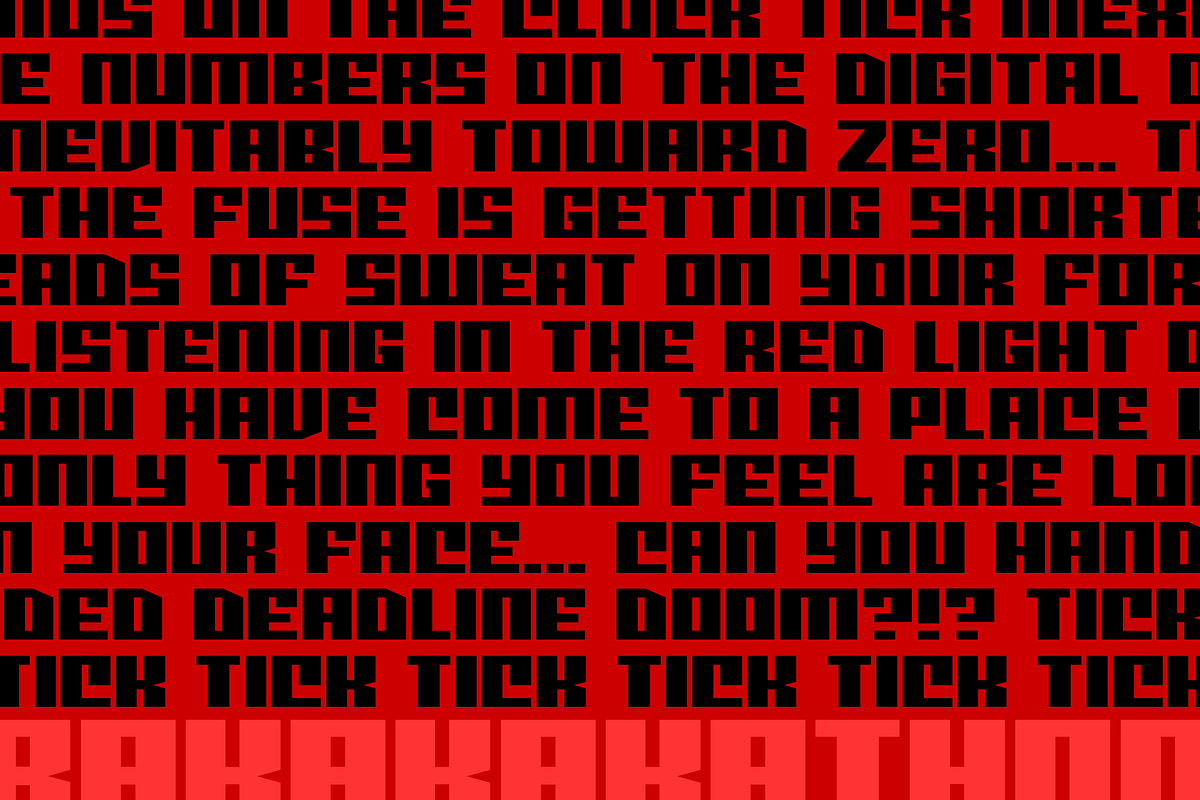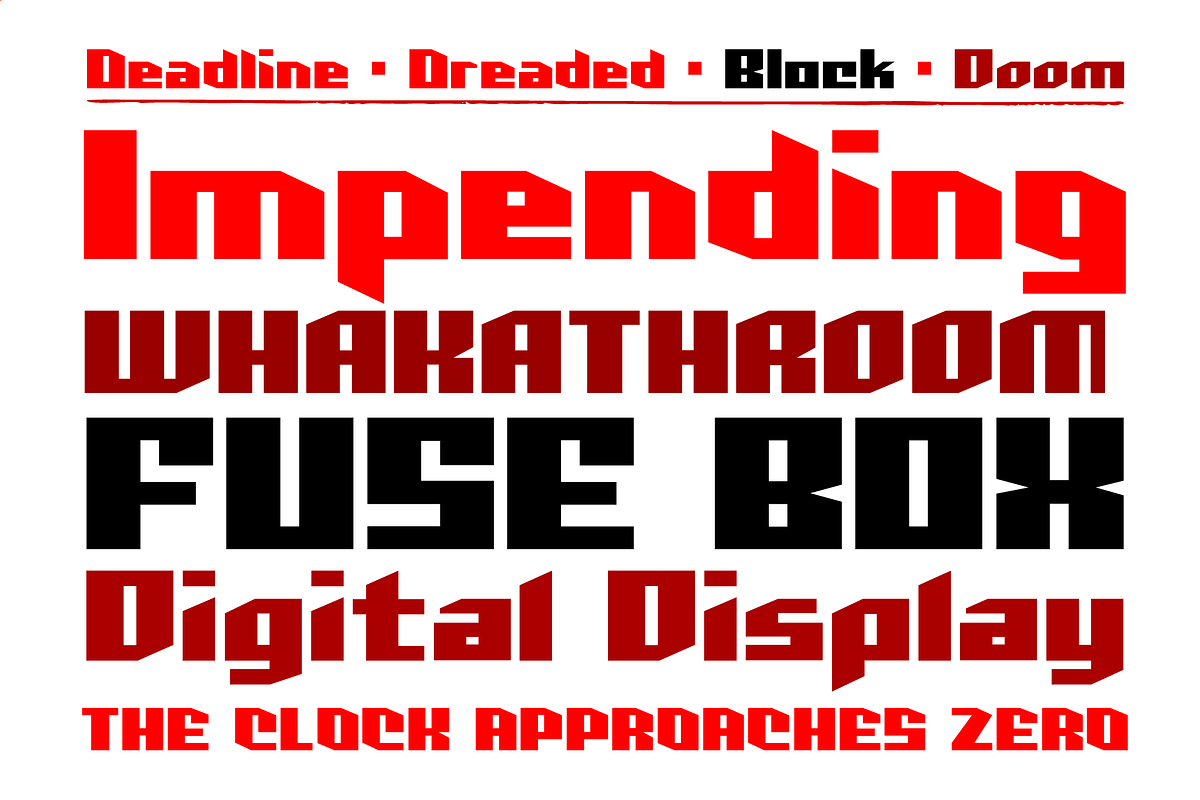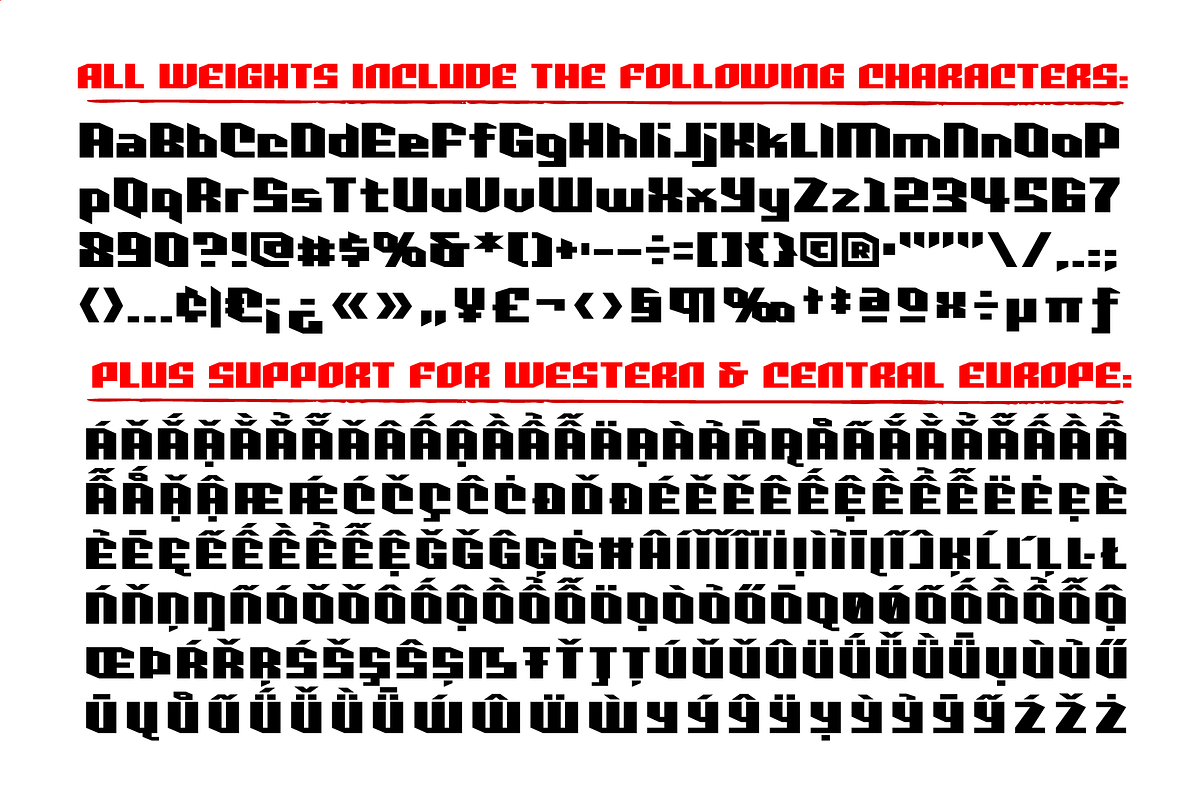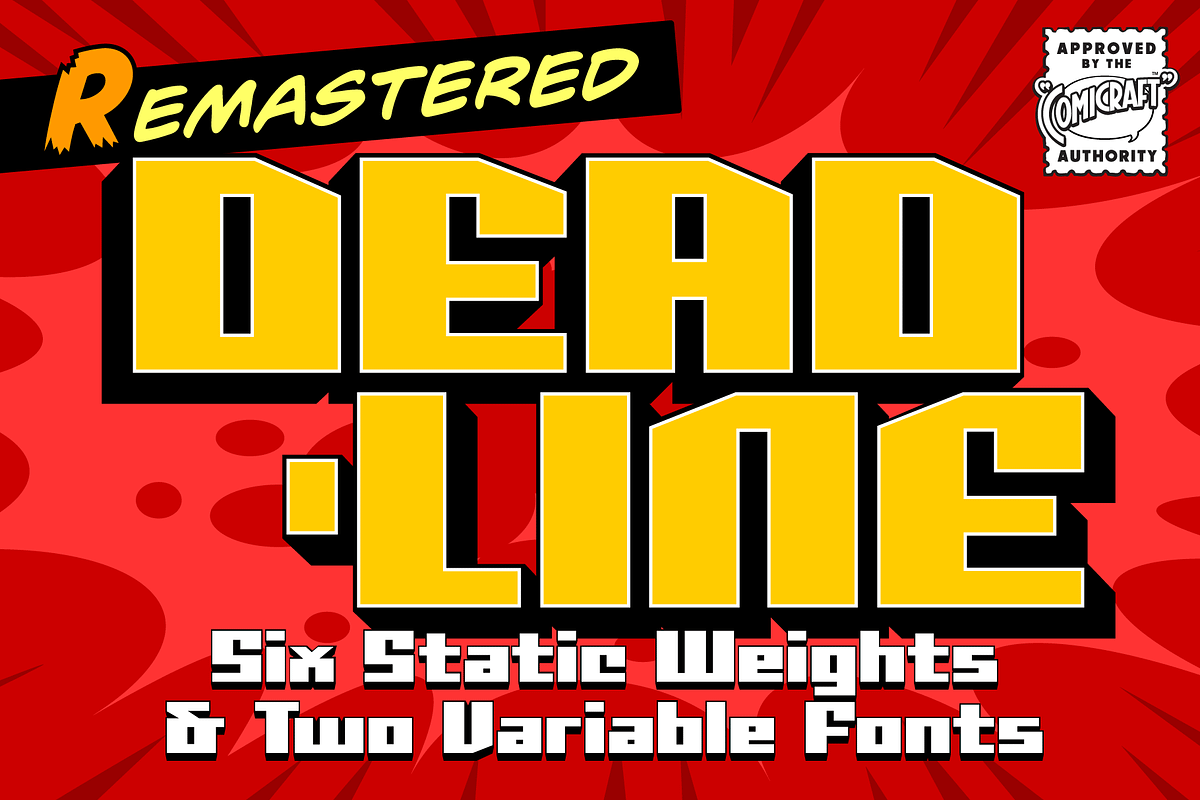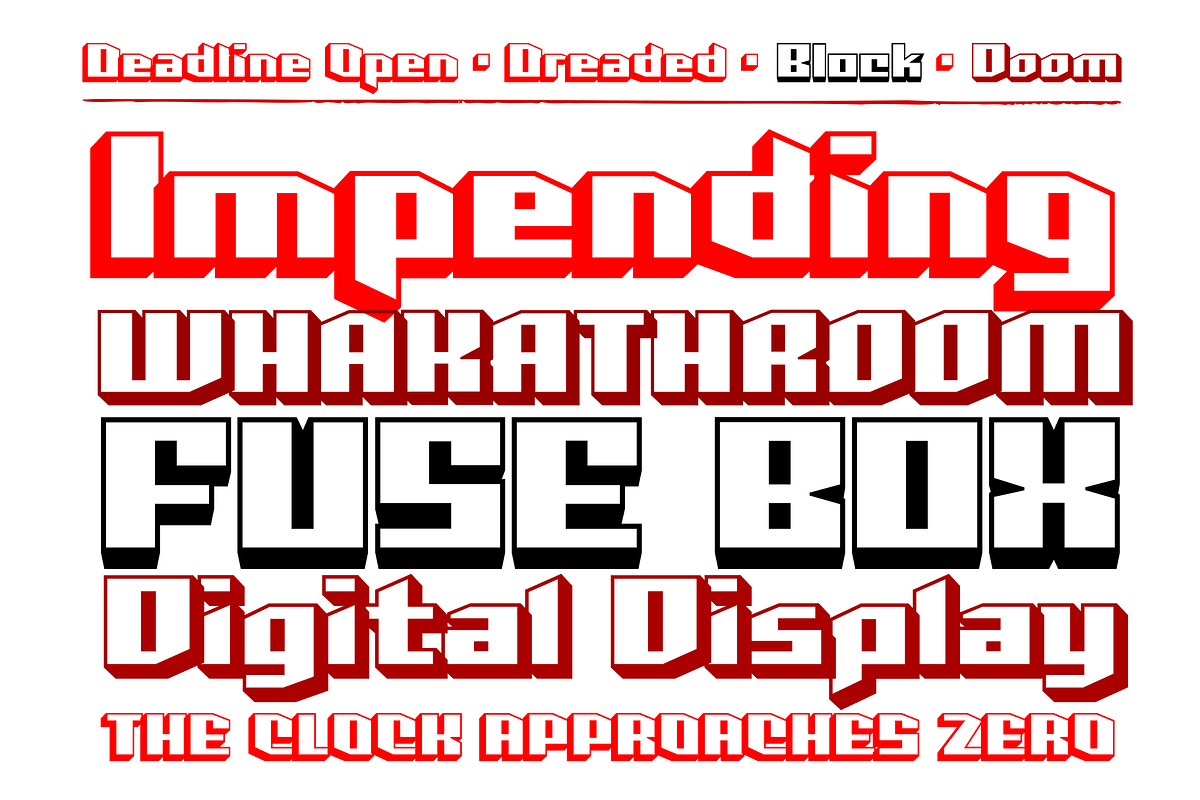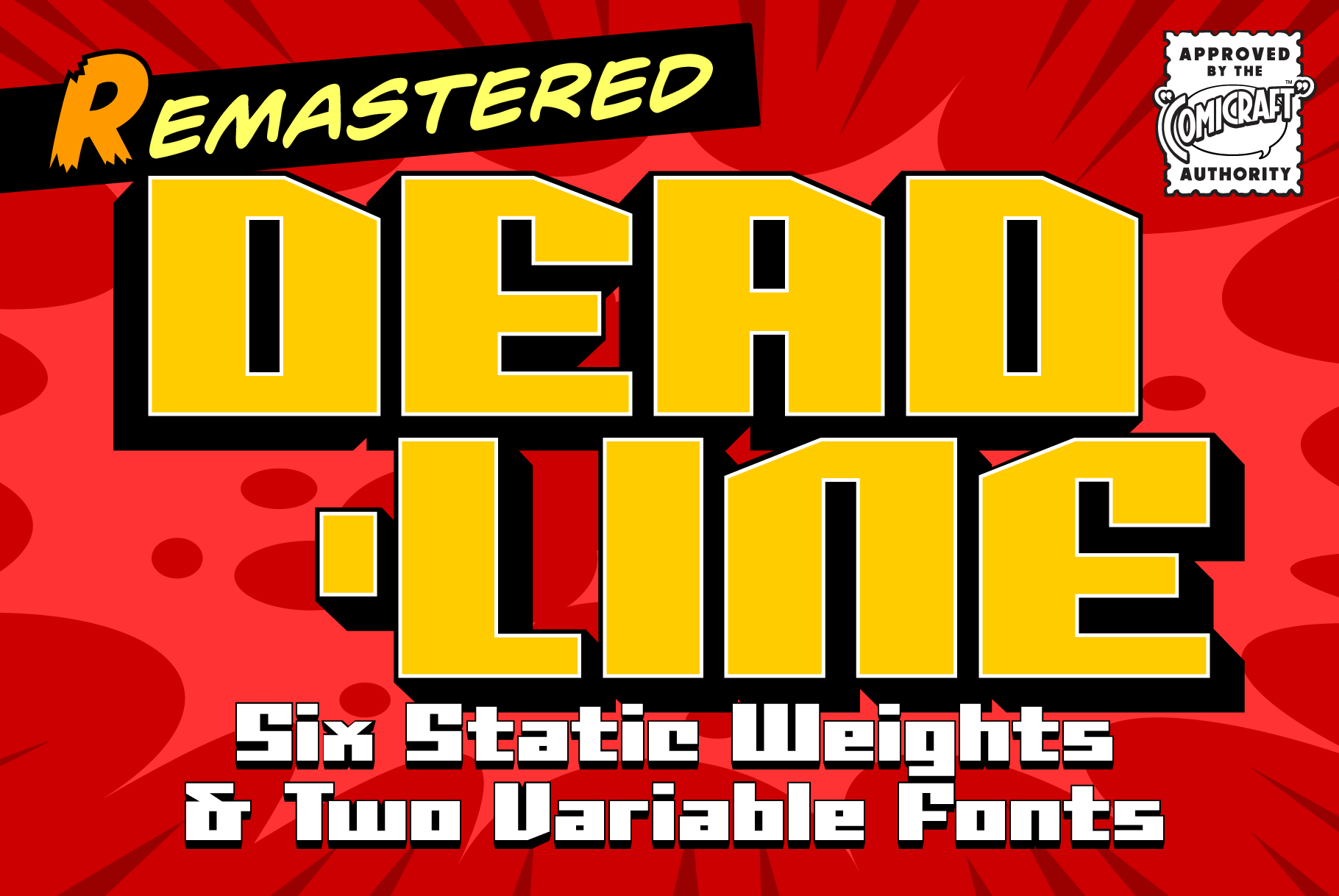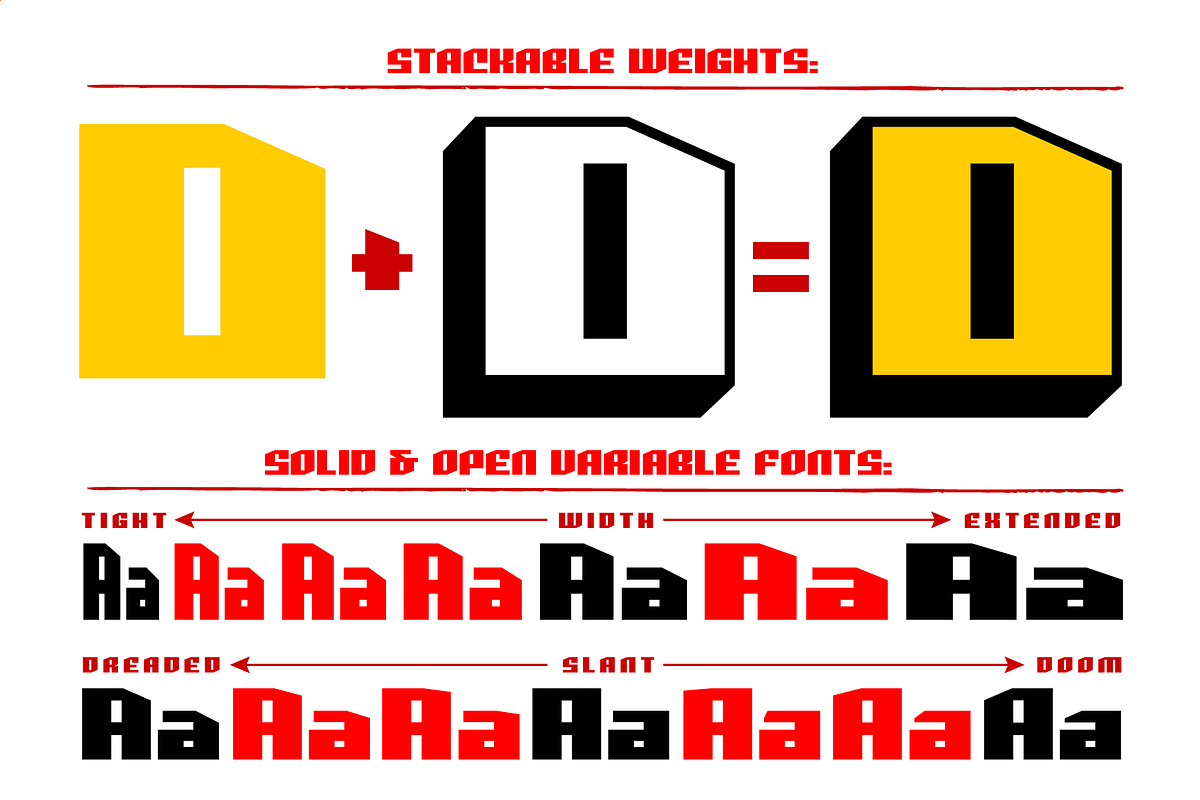
Deadline - heavy 3D block font
The hands on the clock tick inexorably on... the numbers on the digital display roll inevitably toward zero... time is tight, the fuse is getting shorter and the beads of sweat on your forehead are glistening in the red light of the LCD... you have come to a place where the only thing you feel are loaded guns in your face... can YOU handle the DREADED DEADLINE DOOM?!? TICK TICK TICK THRAKAKAKATHOOM!
Deadline Remastered features six static weights, including the new nearly square "Block", each with complete Western & Central European language support. Use the Solid & Open Variable fonts to access unlimited width and angle options.